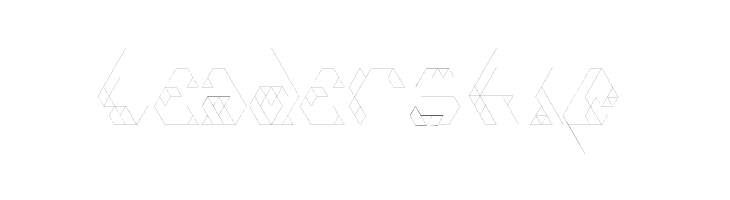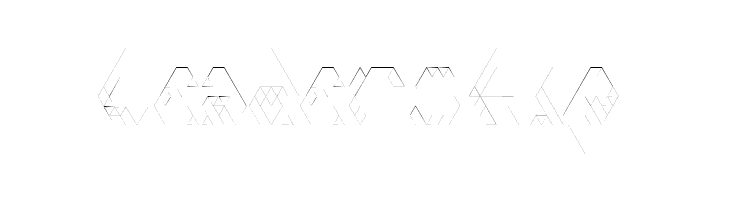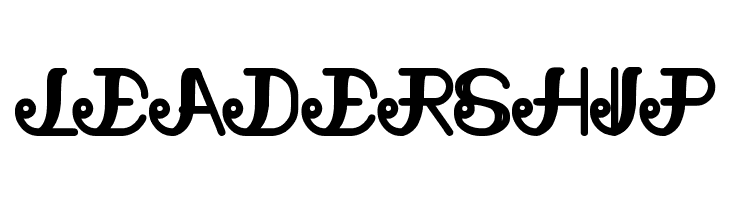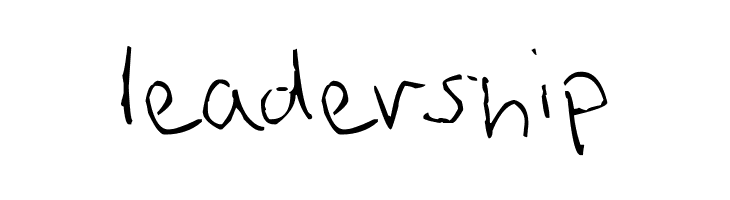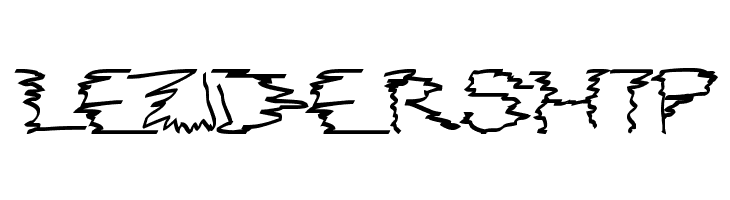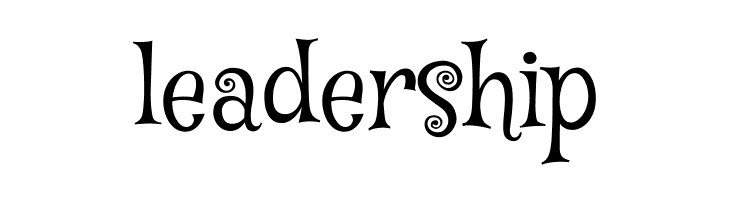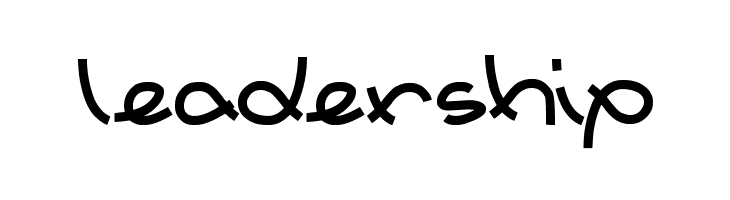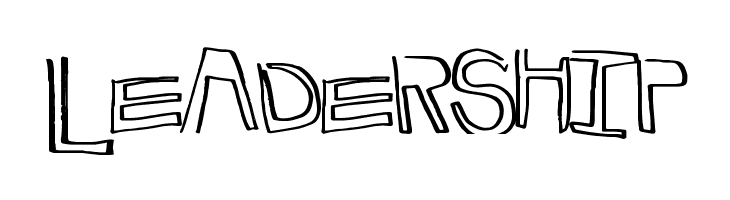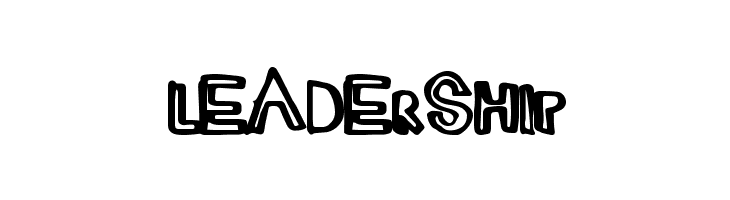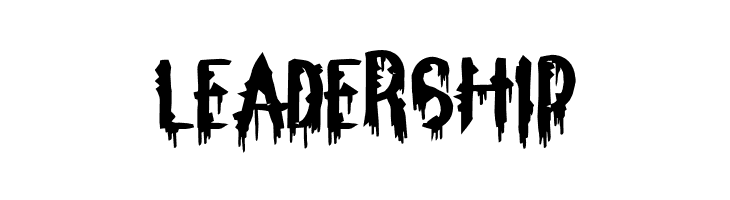
ClarksSummitPanic-Regular Font
A bold, dripping font perfect for horror-themed designs.
DS Macuzione Font
A playful, bold handwritten font with rounded, slanted letterforms.
Extraordinary Font
A playful, handwritten font with rounded edges and a casual, friendly style.
HappyLines Font
A playful, hand-drawn font with a whimsical and informal style.
Iso 2.0 Font
A geometric, futuristic font with hexagonal and isometric design elements.
Iso2.0 Font
A geometric, abstract font with a futuristic and digital aesthetic.
JustMarker Font
A playful, hand-drawn font with a bold, marker-like style and tight character spacing.
Mystery Quest Font
A whimsical font with curly, decorative elements, perfect for magical or fantasy themes.
natural beauty Font
An ornate and decorative font with elaborate swirls and curls.
smoke on the water Font
A jagged, electrifying font with dynamic, distorted characters.
Straight Up Zody Font
A playful, casual handwritten font with irregular strokes and a dynamic feel.